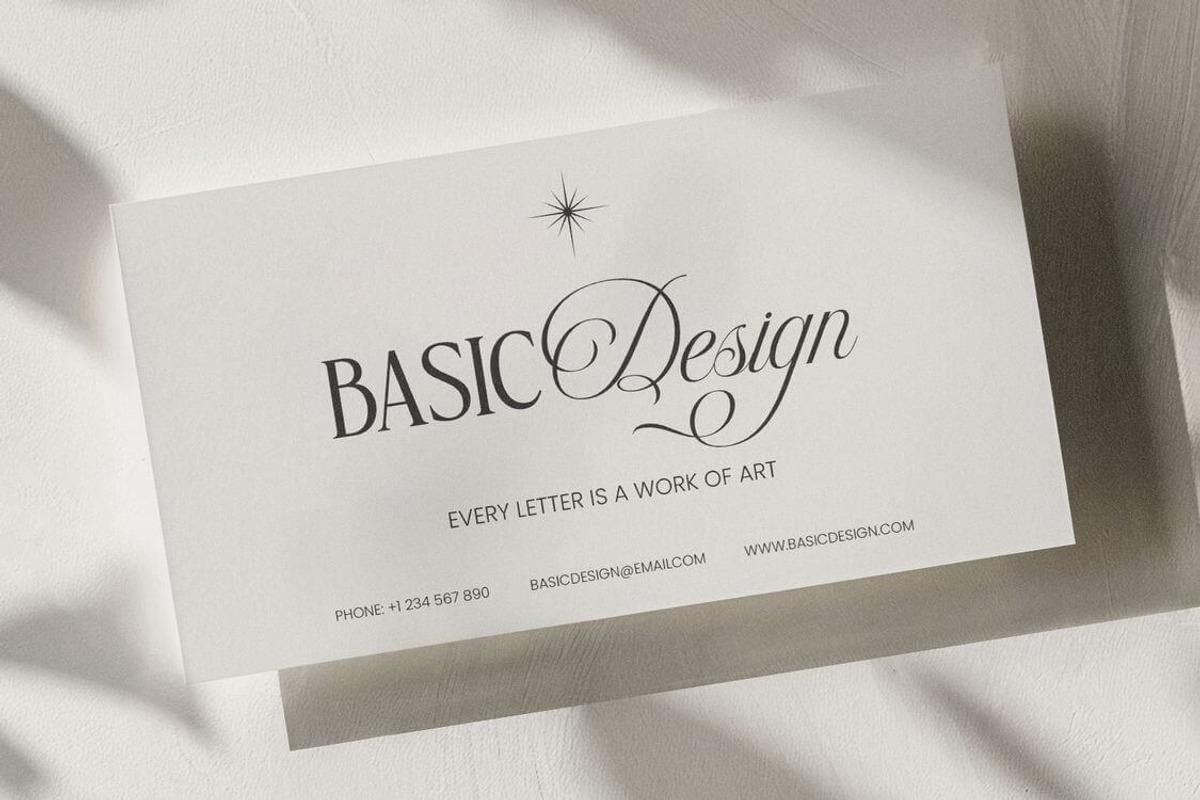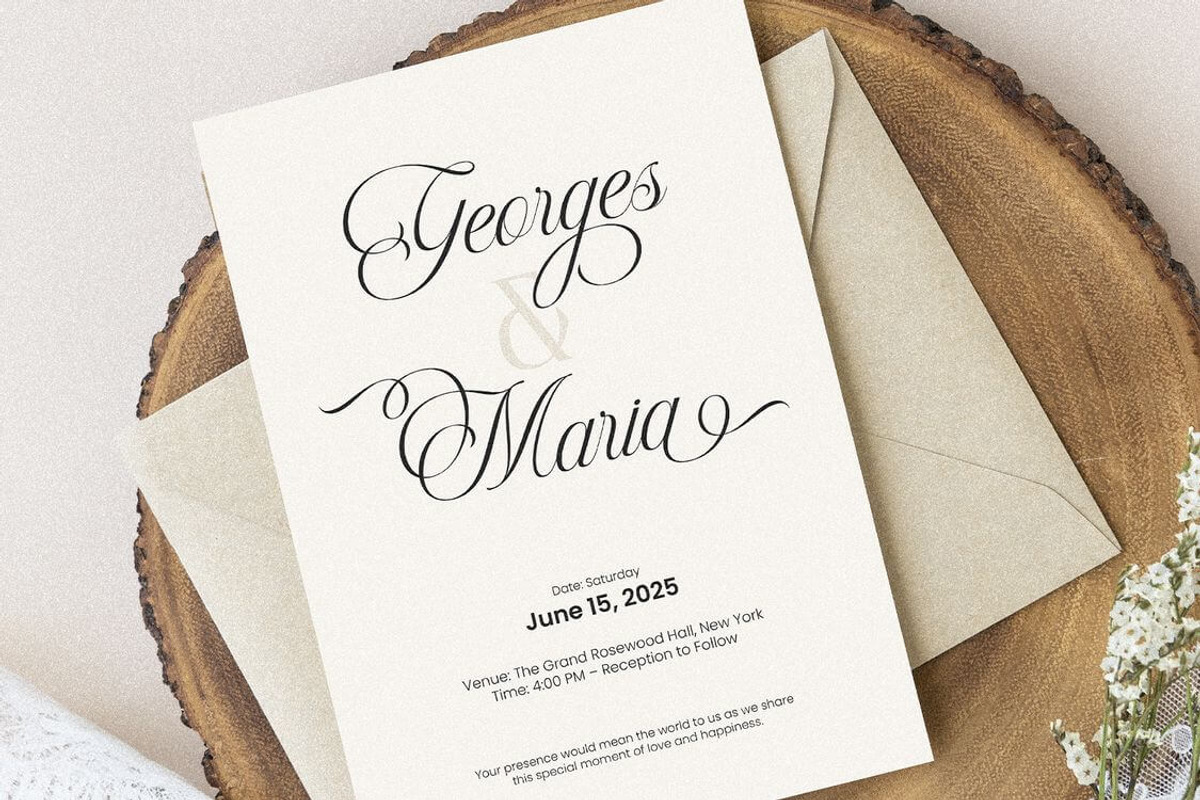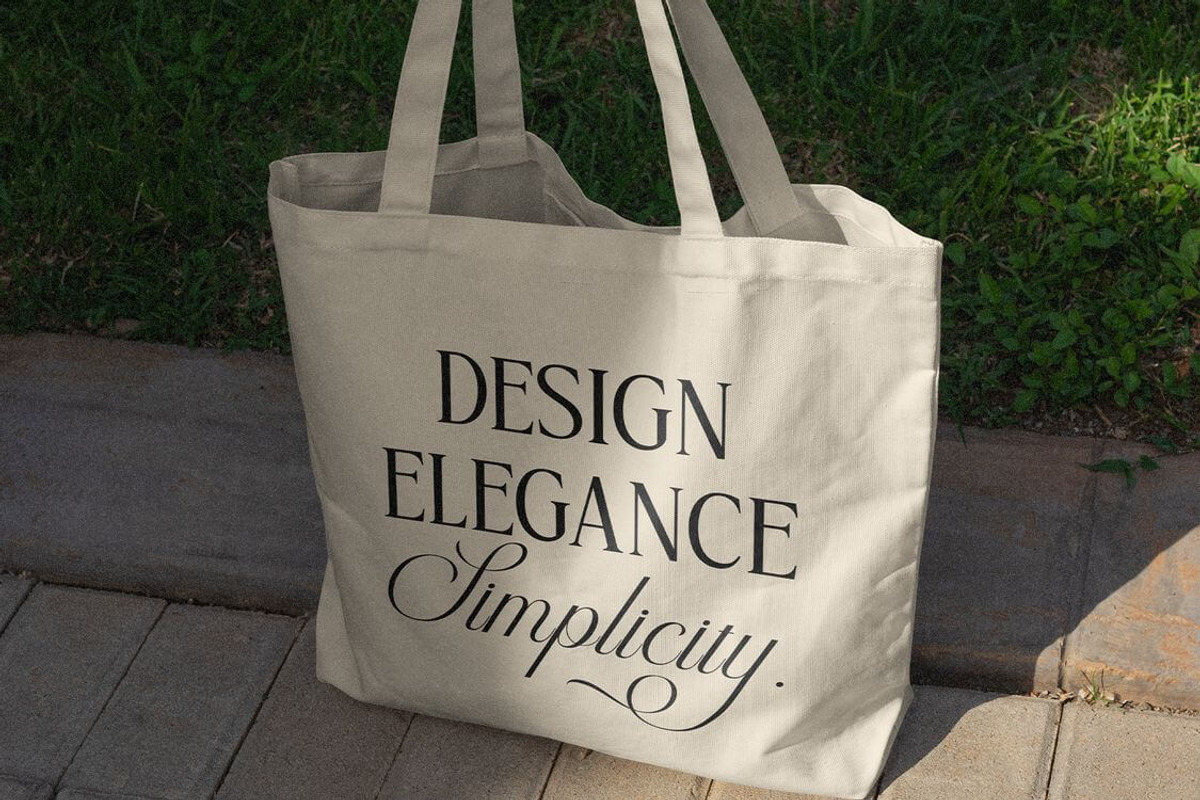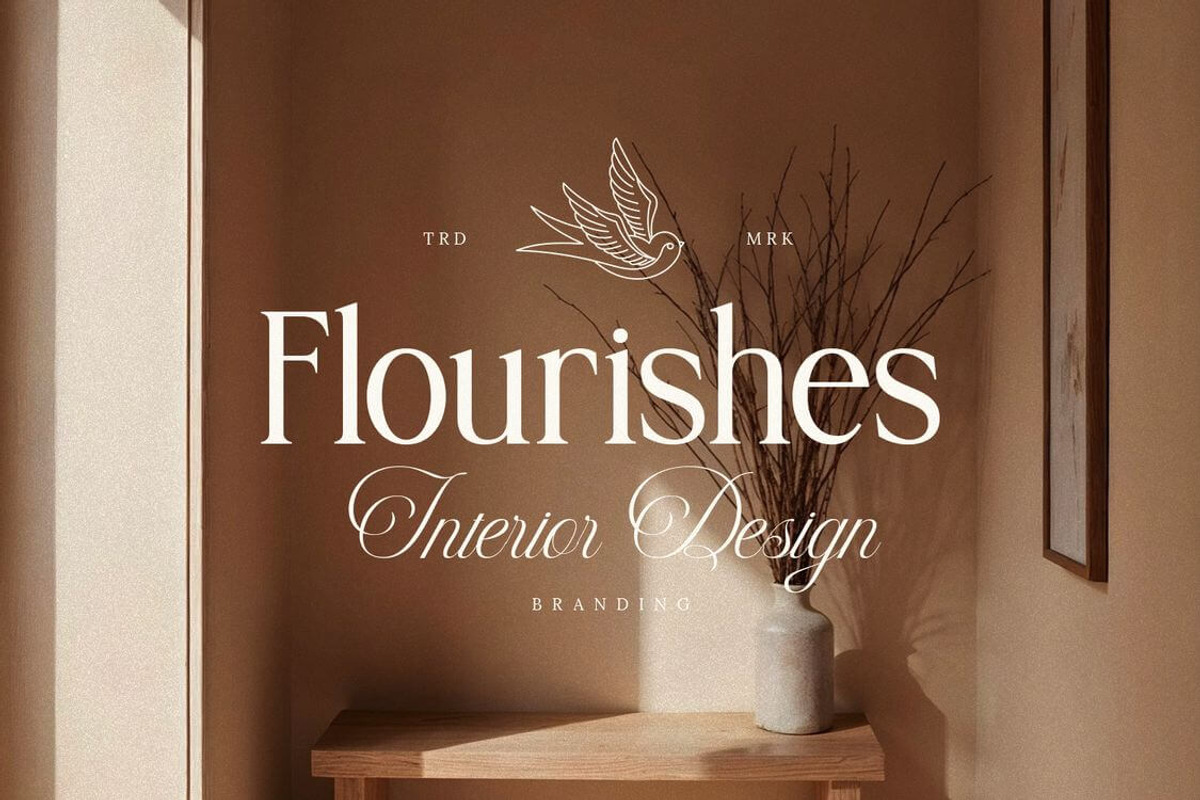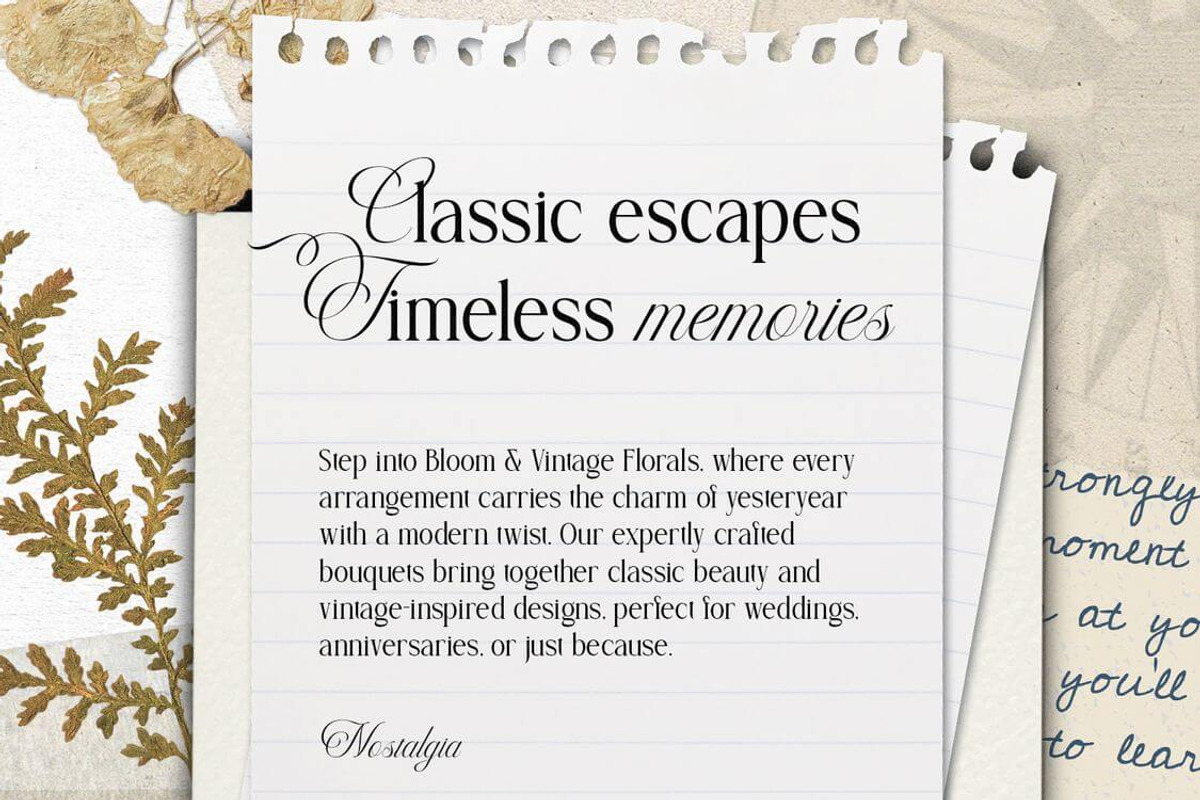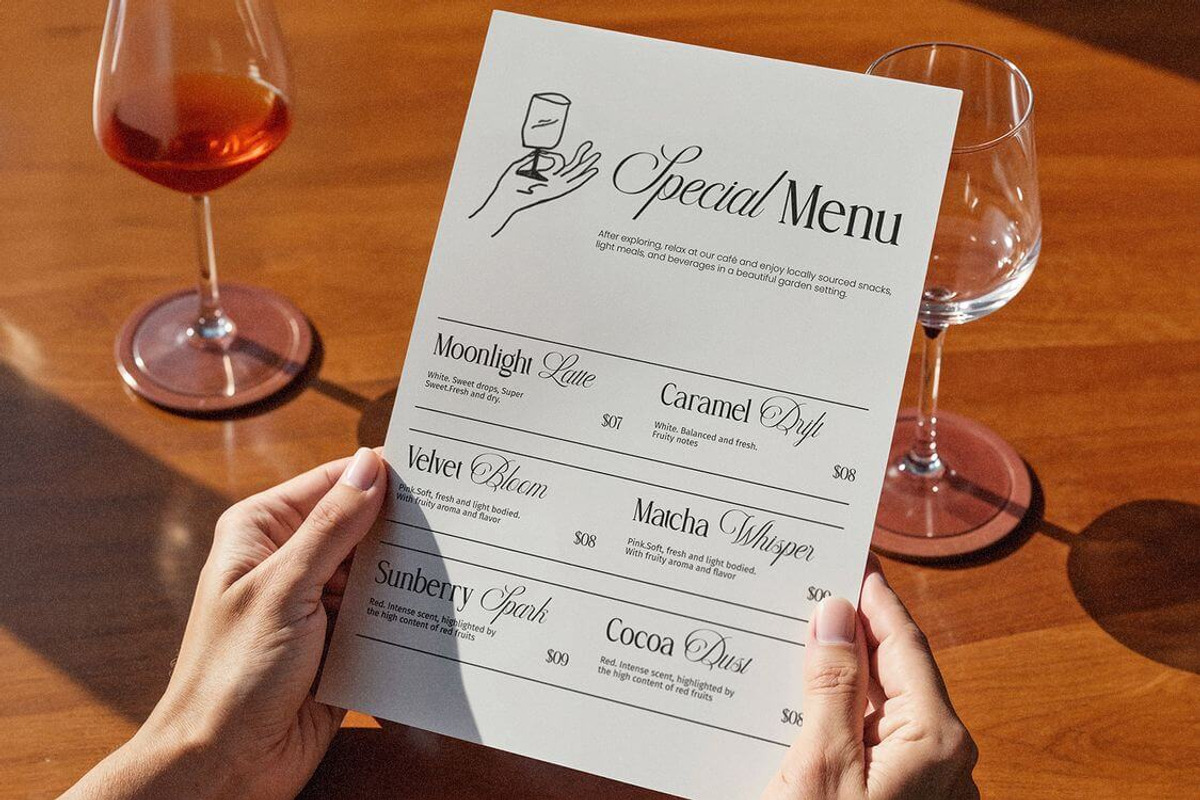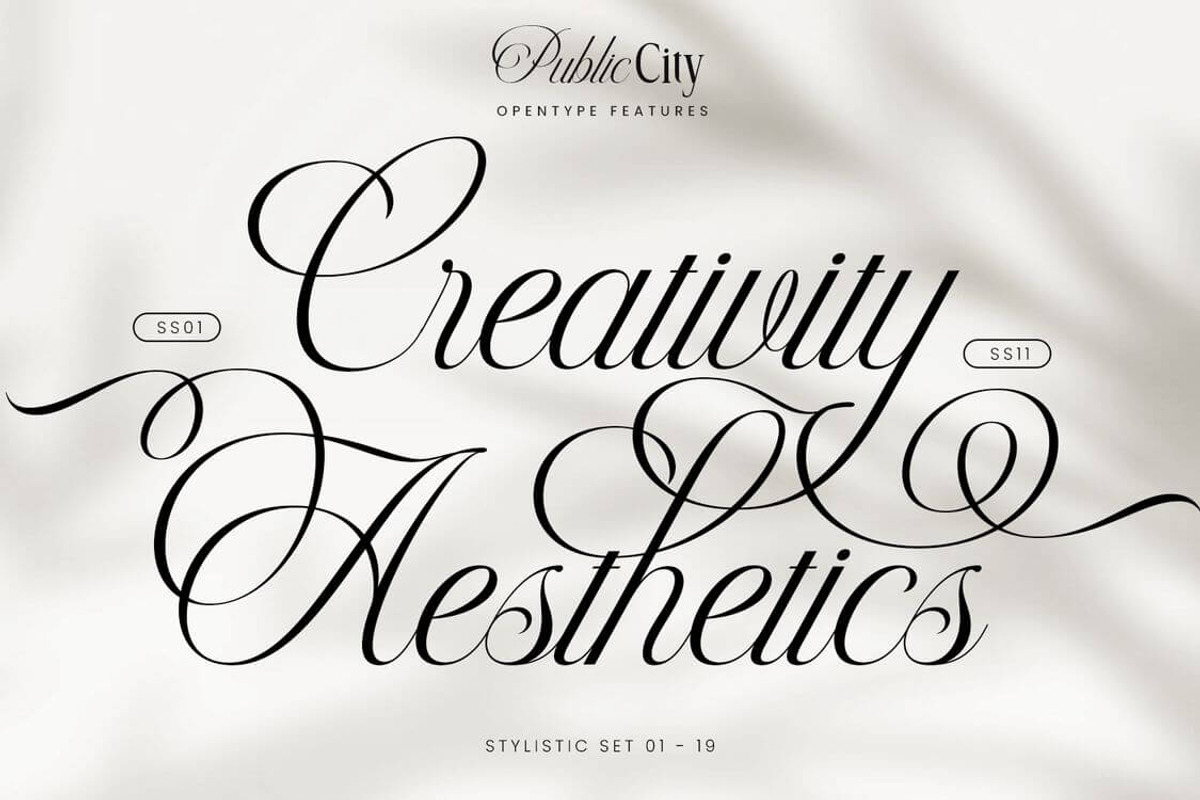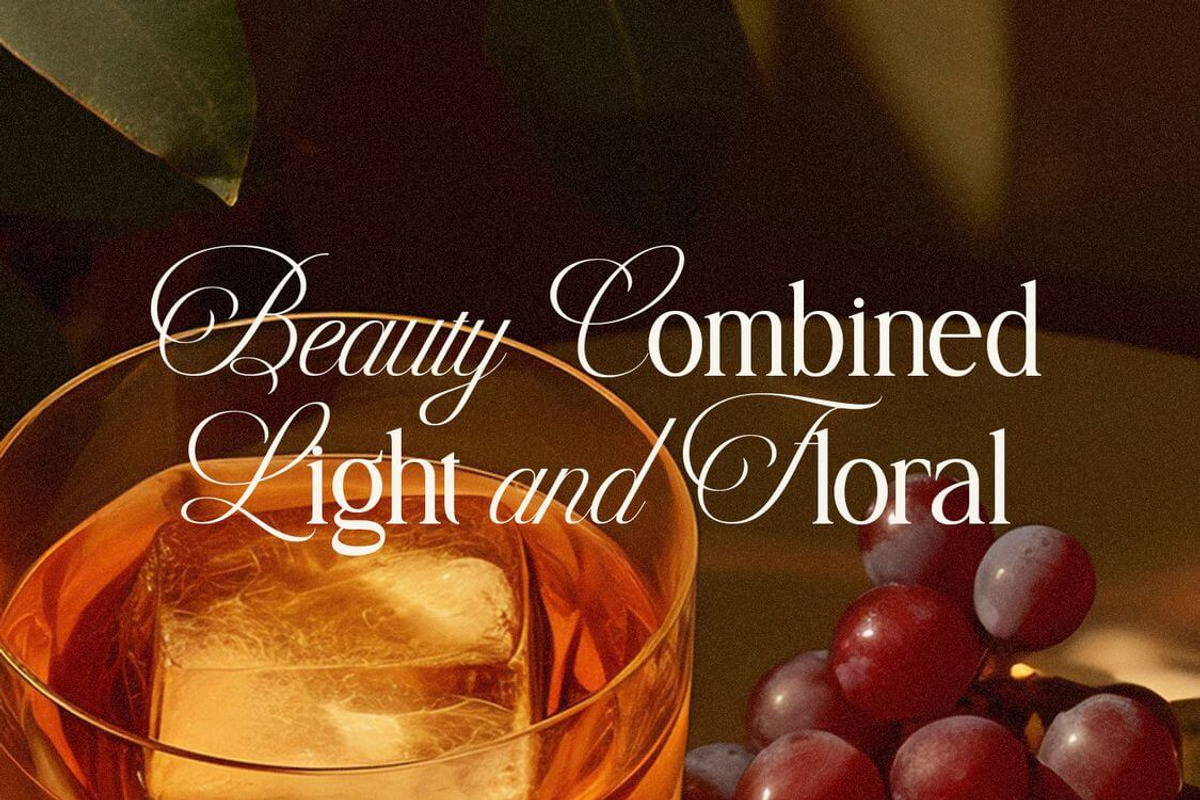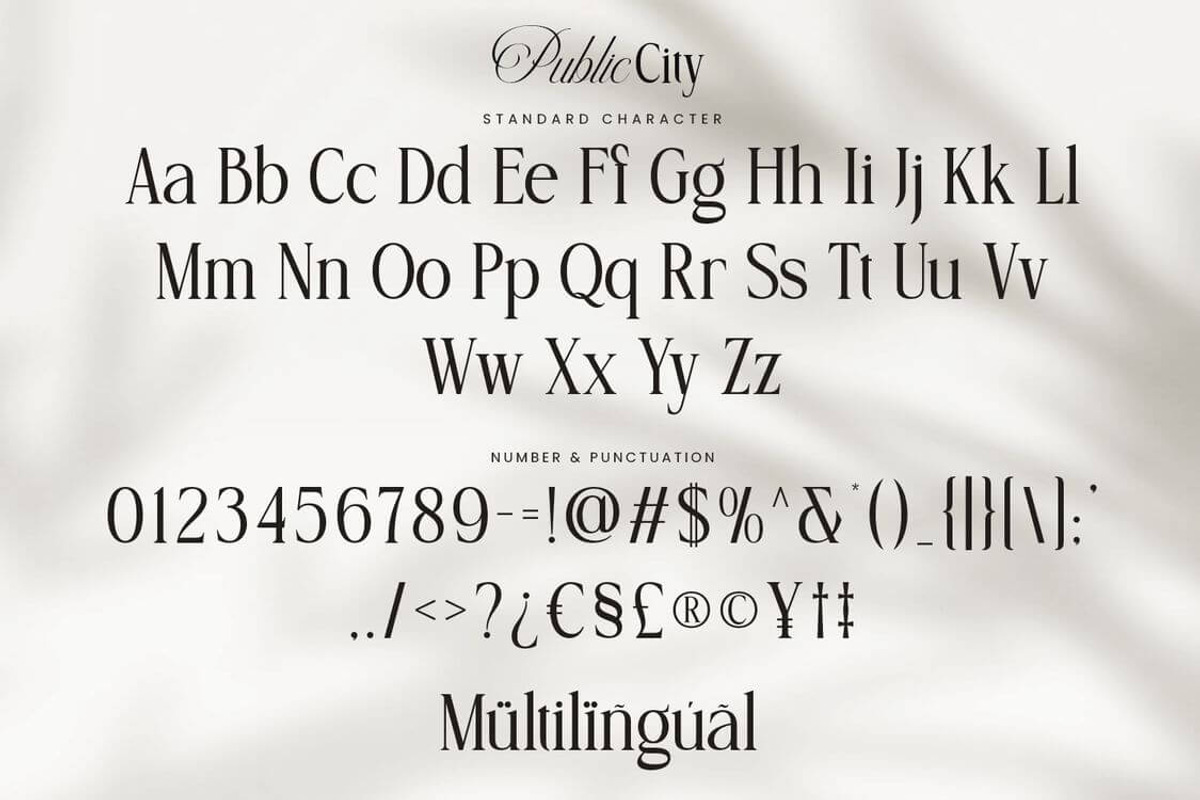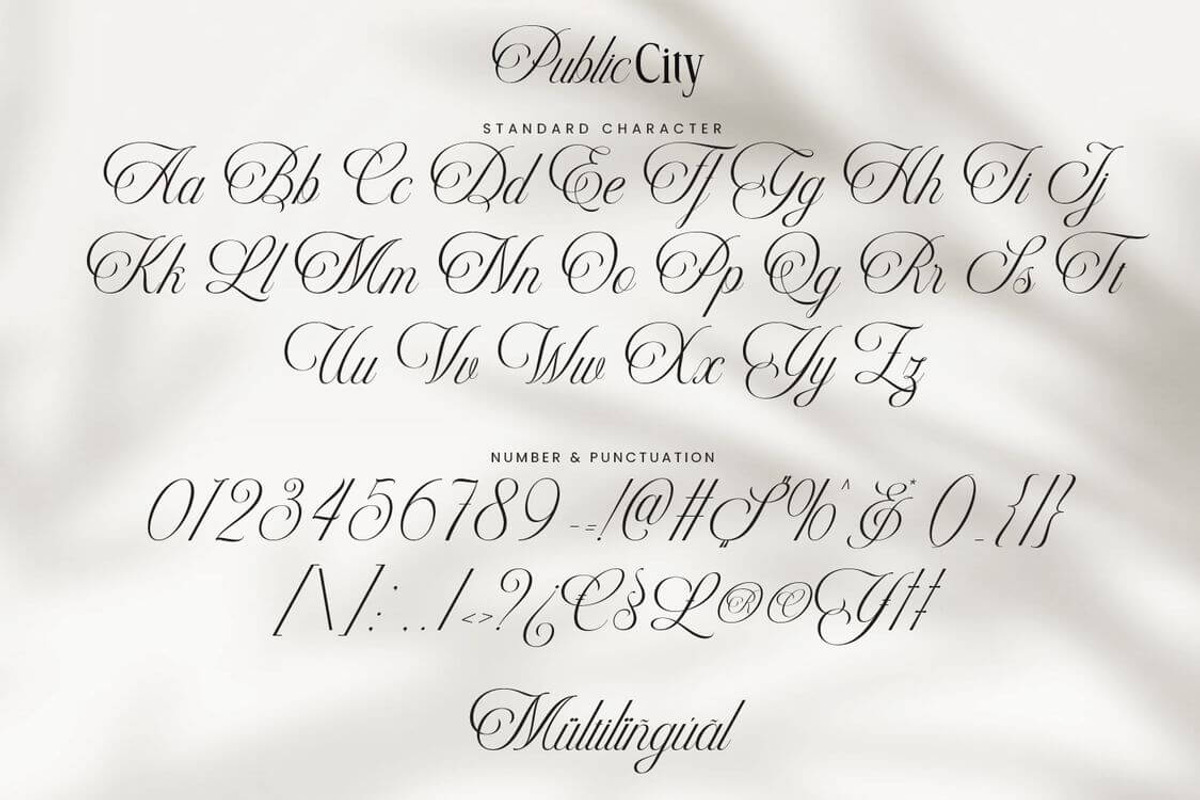
Public City Elegant Classic Font Duo
Introducing Public City – Elegant Classic Font Duo
Public City is a refined font duo combining graceful script and timeless serif styles. Designed to exude elegance and sophistication, this typeface is perfect for branding, editorials, wedding invitations, luxury packaging, and high-end design projects.
The contrast between the flowing script and structured serif offers both charm and clarity, making Public City ideal for elevating visual identity with a touch of classic beauty.
Where elegance meets versatility – discover the charm of Public City.
Public City is perfectly suited for branding, logotypes, wedding invitations, romantic quotes, labels, social media posts, advertisements, product packaging, product designs, label, photography, watermark, invitation, stationery and any projects seeking premium quality and luxury and aesthetic feel.
- Multilingual Support including Afrikaans, Albanian, Basque, Catalan, Danish, Dutch, English, Estonian, Faroese, Filipino, Finnish, French, Galician, German, Icelandic, Indonesian, Irish, Italian, Malay, Norwegian Bokmål, Portuguese, Spanish, Swahili, Swedish, Zulu